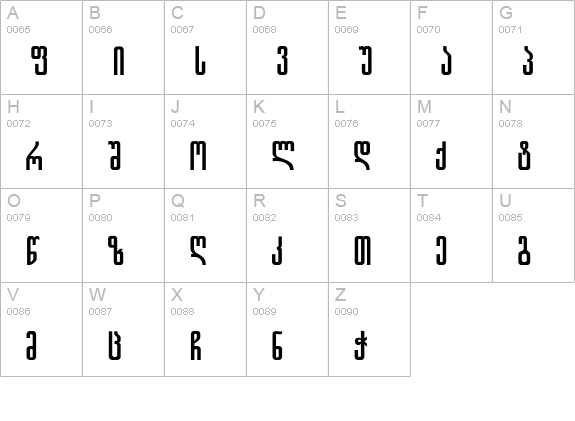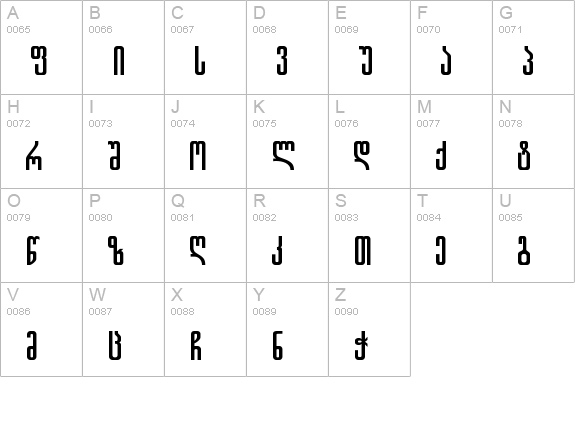
Gremy-ITV Font Details
Introducing Gremy-ITV font, a versatile and modern typeface that combines elegance with a touch of playfulness. With its sleek lines and subtle curves, Gremy-ITV is perfect for a wide range of design projects, from branding to editorial layouts. This font is not only aesthetically pleasing but also highly readable, making it a great choice for both print and digital applications. Whether you're working on a website, poster, or logo design, Gremy-ITV will add a sophisticated and contemporary look to your work. The best part? Gremy-ITV is available for free download at FontsMarket.com. So go ahead and elevate your designs with this stylish and versatile font today!